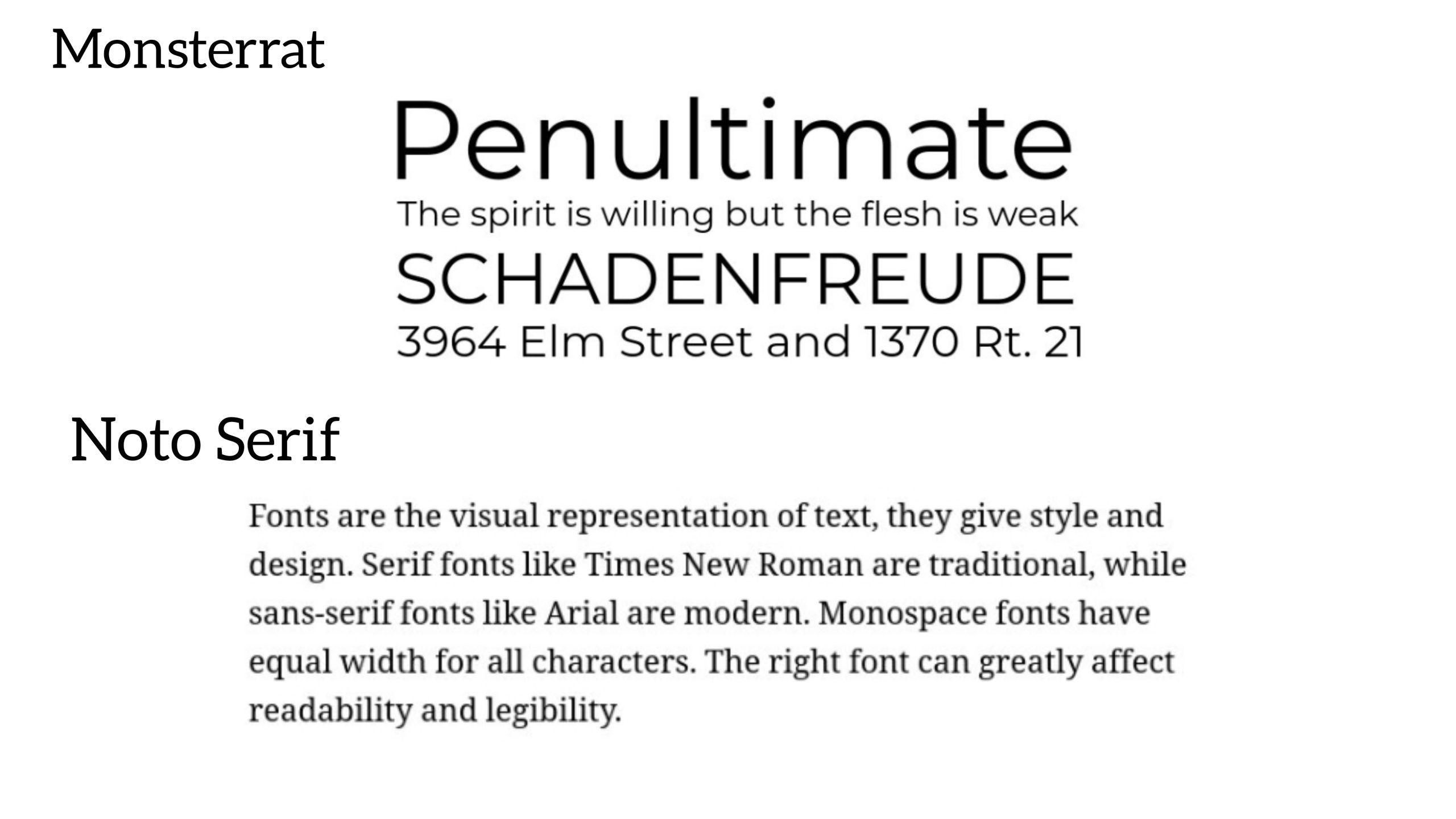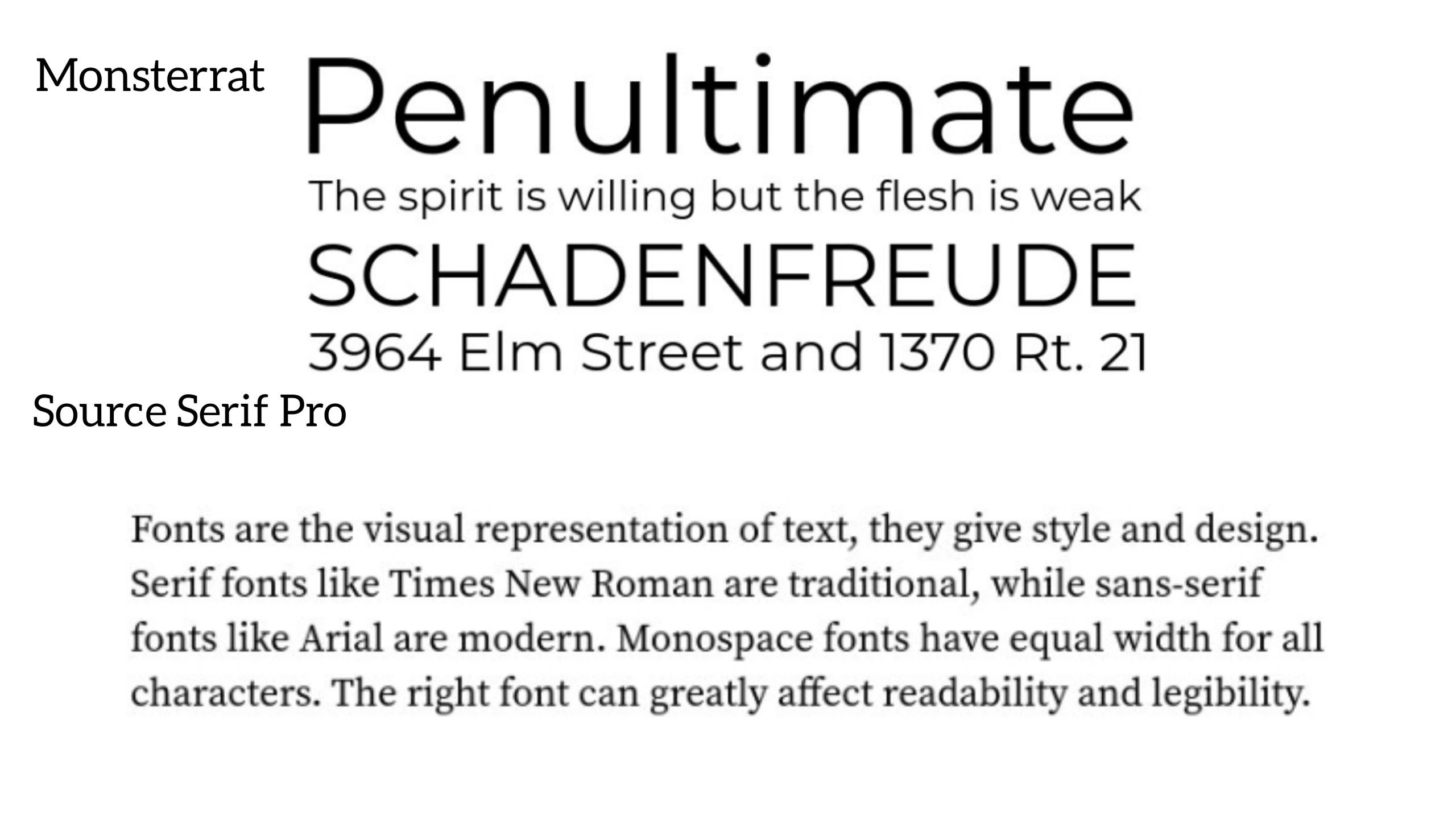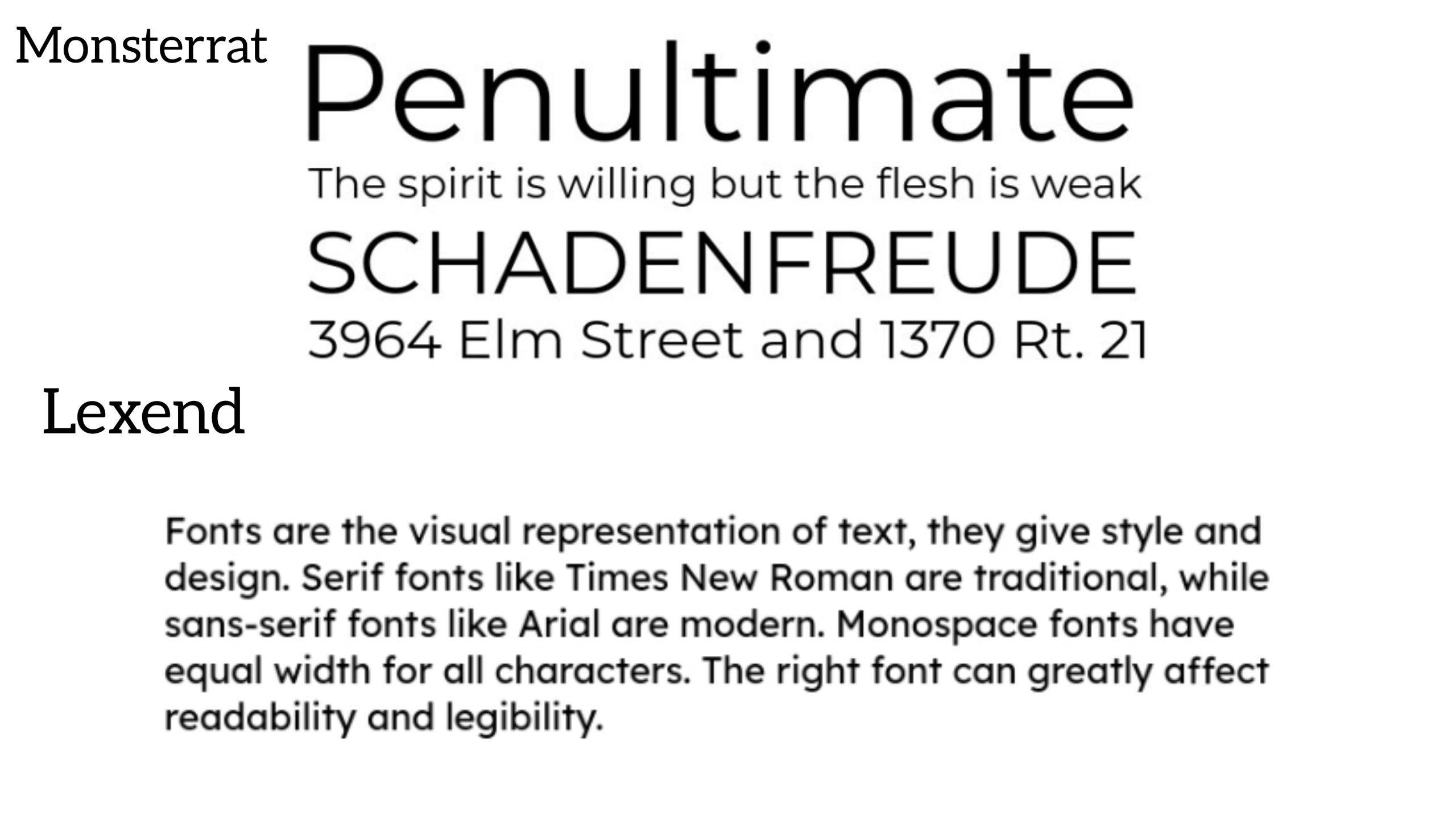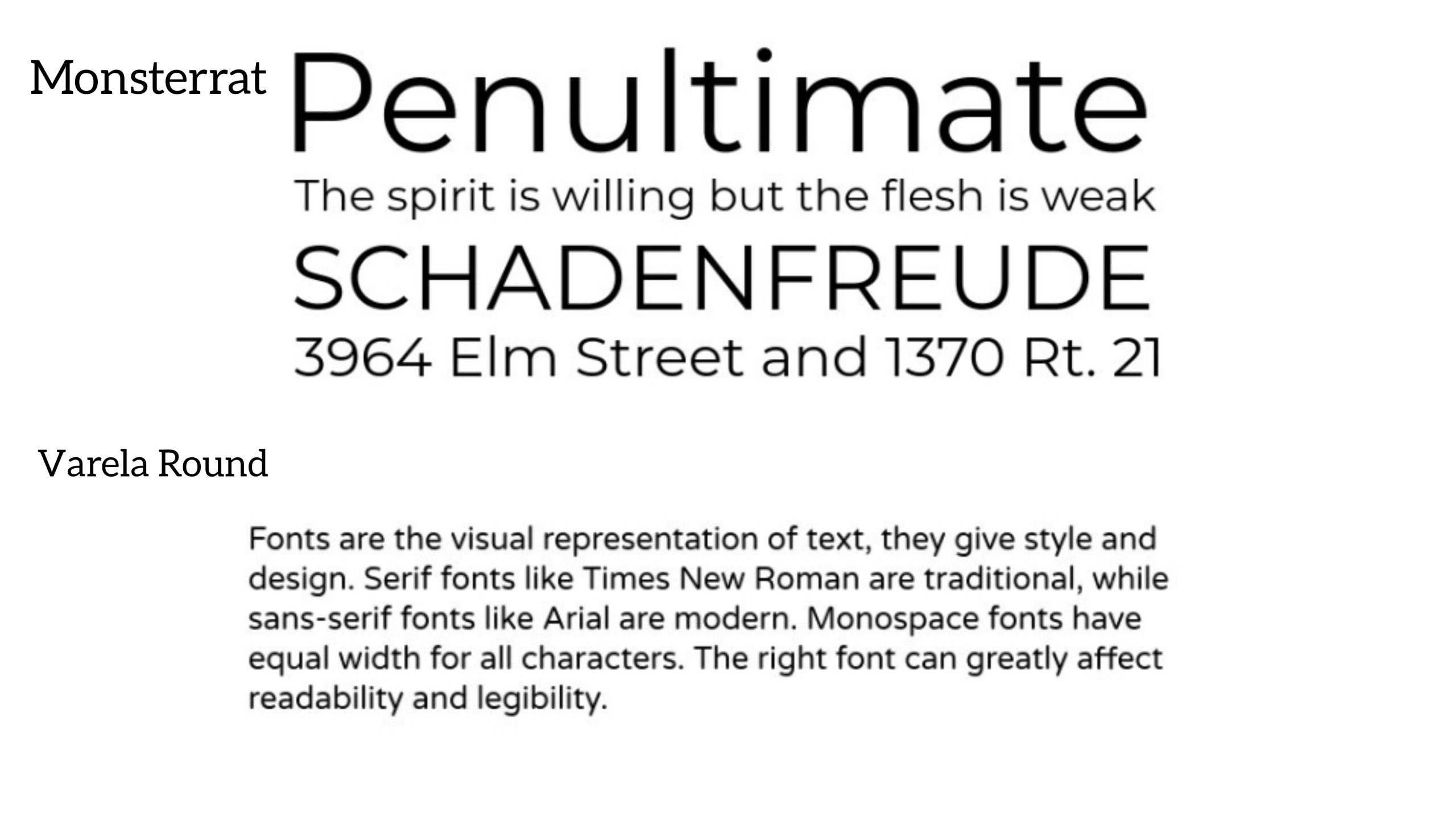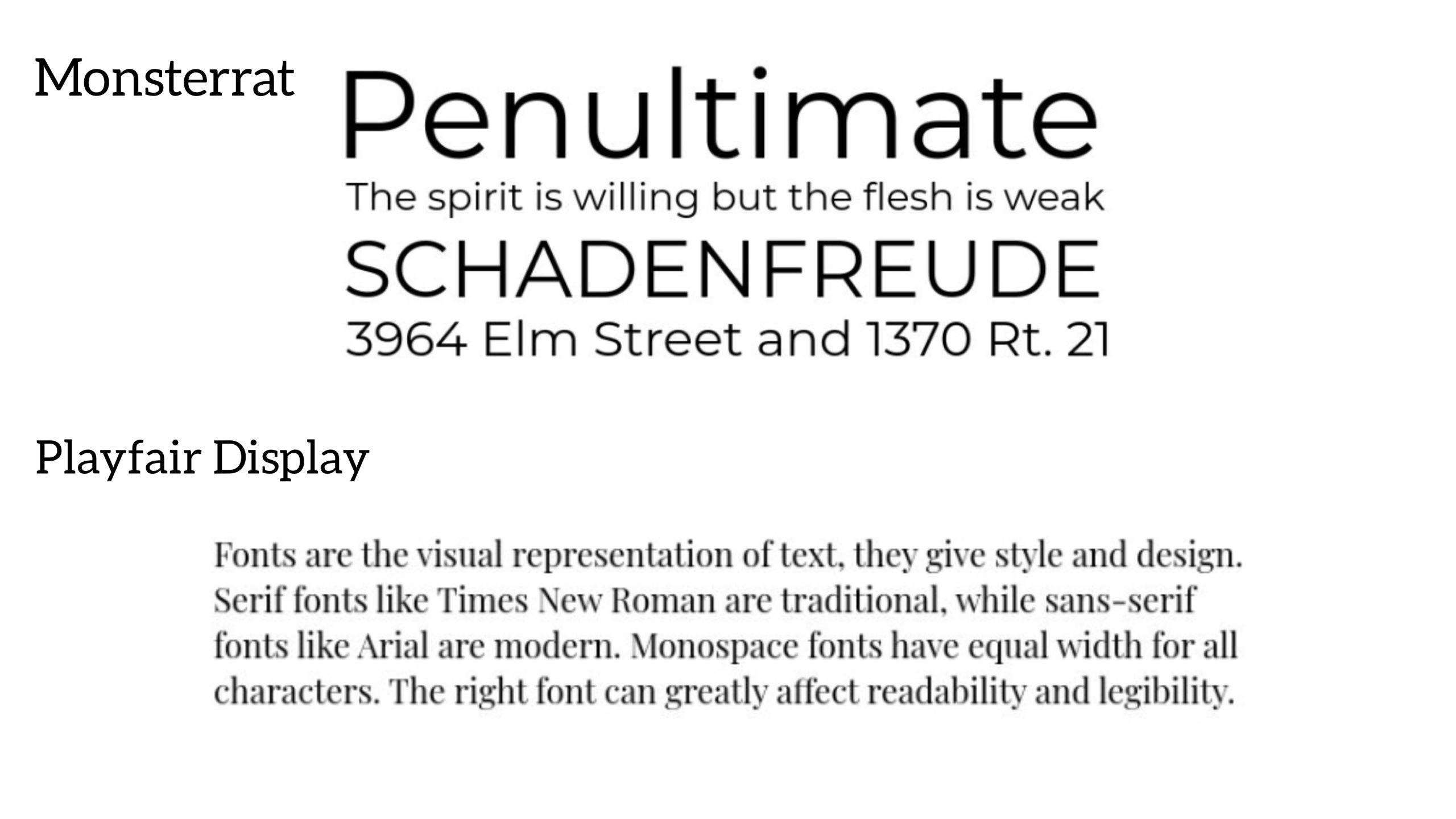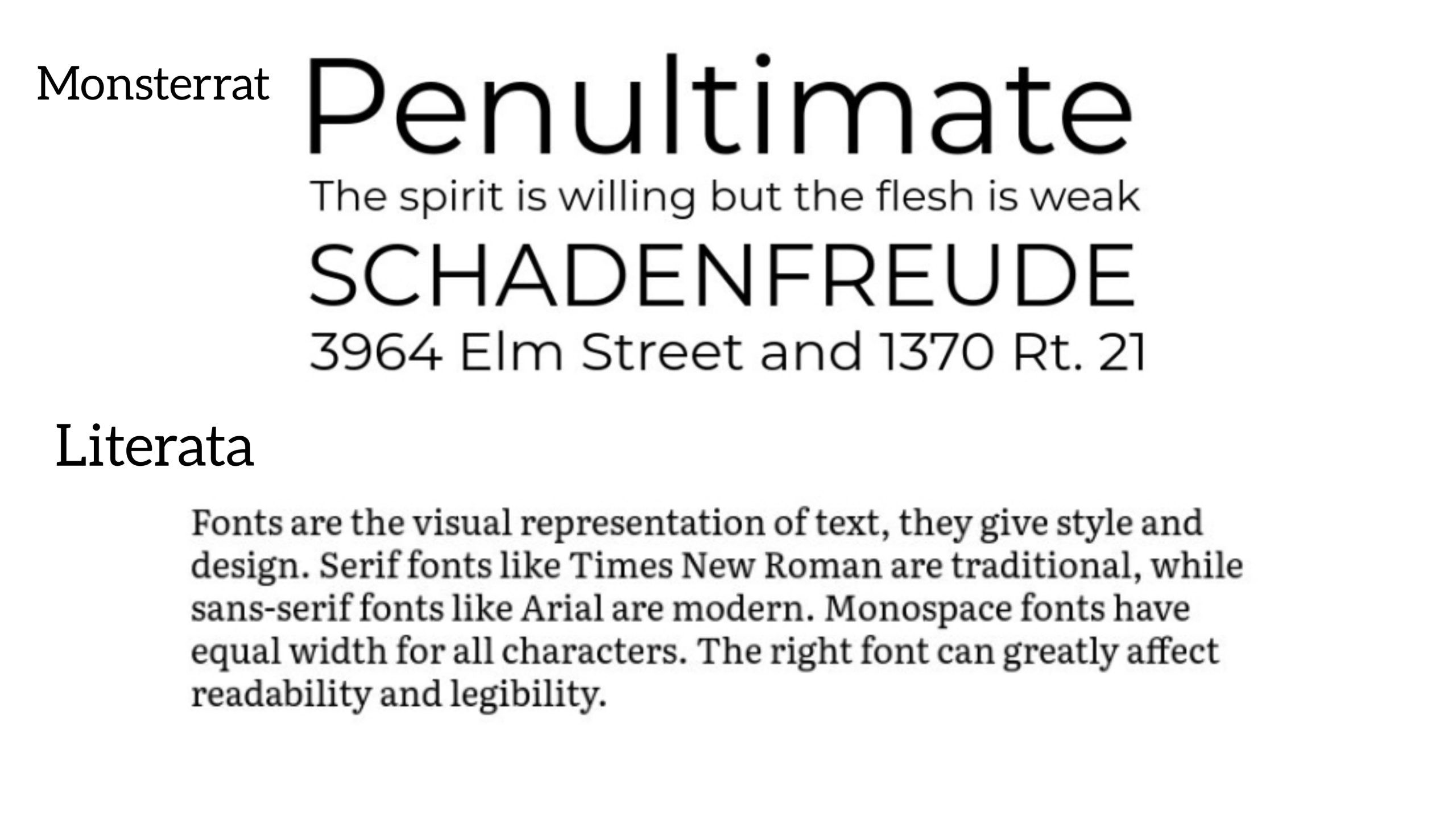
Choosing the right Montserrat font pairing can instantly enhance your design’s appeal. Montserrat itself is a geometric sans-serif typeface by Julieta Ulanovsky, released in 2011. It was inspired by vintage signs in Buenos Aires’ Montserrat neighborhood. Therefore, its clean lines blend modern style with classic charm.
Moreover, when paired well, Montserrat maintains readability while emphasizing key messages in the design. A thoughtful combination with this font makes your design look polished, not cluttered. So, let’s explore the best font combinations to elevate your work!
Key Takeaways
- Montserrat font pairing enhances readability and visual harmony in any design project.
- Serif and sans-serif fonts like Noto Serif or Merriweather pair well with Montserrat.
- The right font paired with Montserrat can balance aesthetics with classic elegance.
Top 12 Montserrat Font Pairing Choices for Pro Designers
If you’ve ever wondered what font pairs well with Montserrat, we’ve gathered the top 12 fonts to inspire your next project. Feel free to choose the combinations that best suit your style!
1. Noto Serif
Noto Serif is a modulated serif typeface designed for multiple scripts, including Latin, Cyrillic, and Greek. It offers italic styles, multiple weights, and a vast glyph set. When combined with Montserrat, Noto Serif’s similar x-height and letterforms create a harmonious balance for body text while Montserrat serves as the heading font.
2. Varela Round
If you’re wondering, “Does Montserrat font pair well with Varela Round?”, the answer is yes. This Montserrat font pairing works well, with Varela Round’s rounded sans-serif style and friendly letterforms used for body text, while Montserrat’s clean, geometric shapes stand out as the heading font.
3. Playfair Display
Playfair Display is a transitional typeface influenced by late 18th-century designs. Its high contrast and delicate hairlines provide an elegant touch when paired with Montserrat’s modern structure. This combination is particularly effective for projects aiming for a classic yet contemporary feel.
4. Literata
Literata is a variable serif font designed for digital reading across all devices. As a smart Montserrat font pairing, it blends classic and modern styles. This duo offers excellent readability and aesthetic balance. It’s ideal for websites, blogs, or digital publications.
5. Bitter
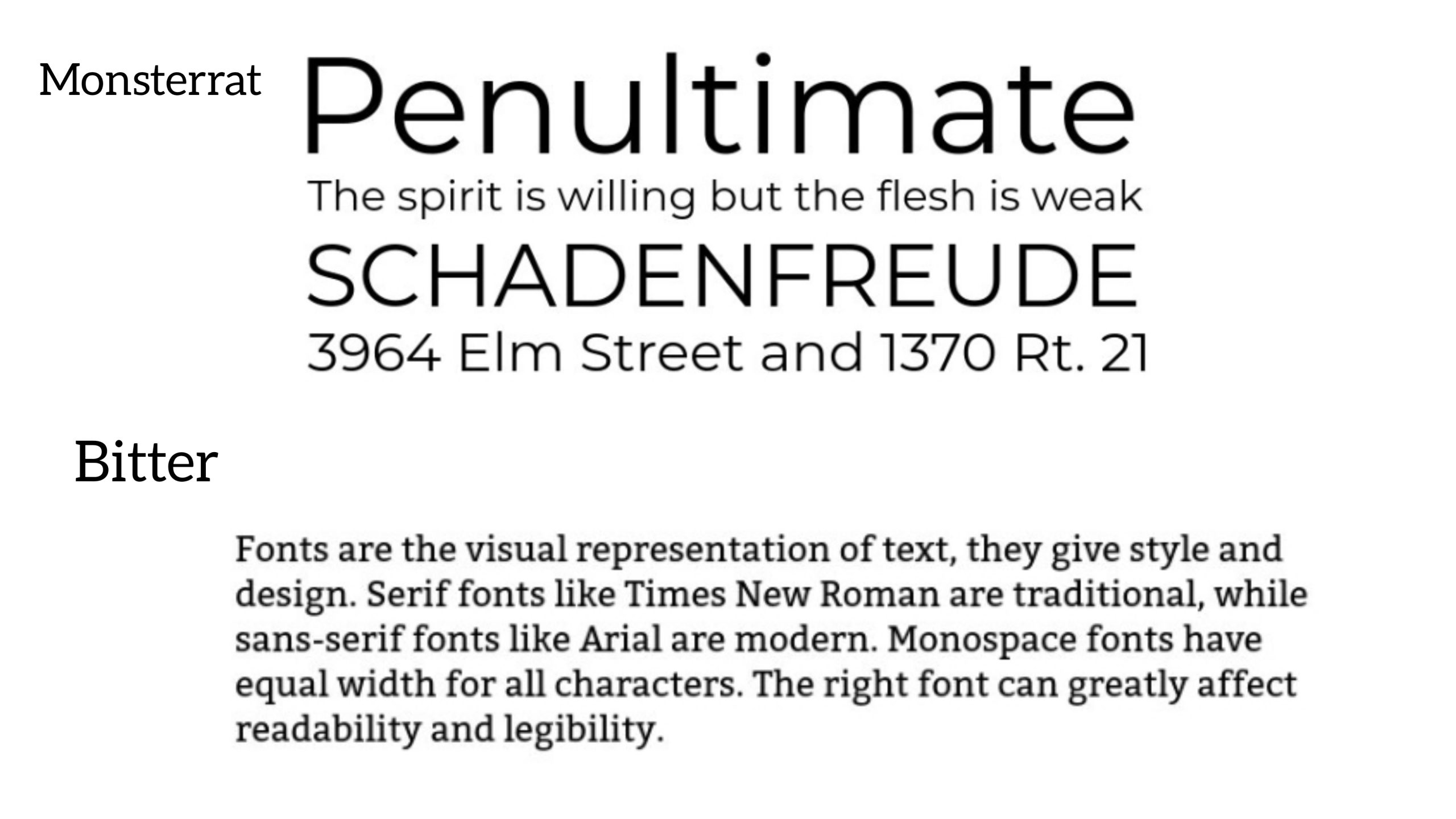
Bitter is a contemporary slab serif typeface designed for comfortable reading on screens. Its robust design and rational principles make it a strong companion to Montserrat, providing a balanced contrast that enhances readability in digital formats.
6. Varta
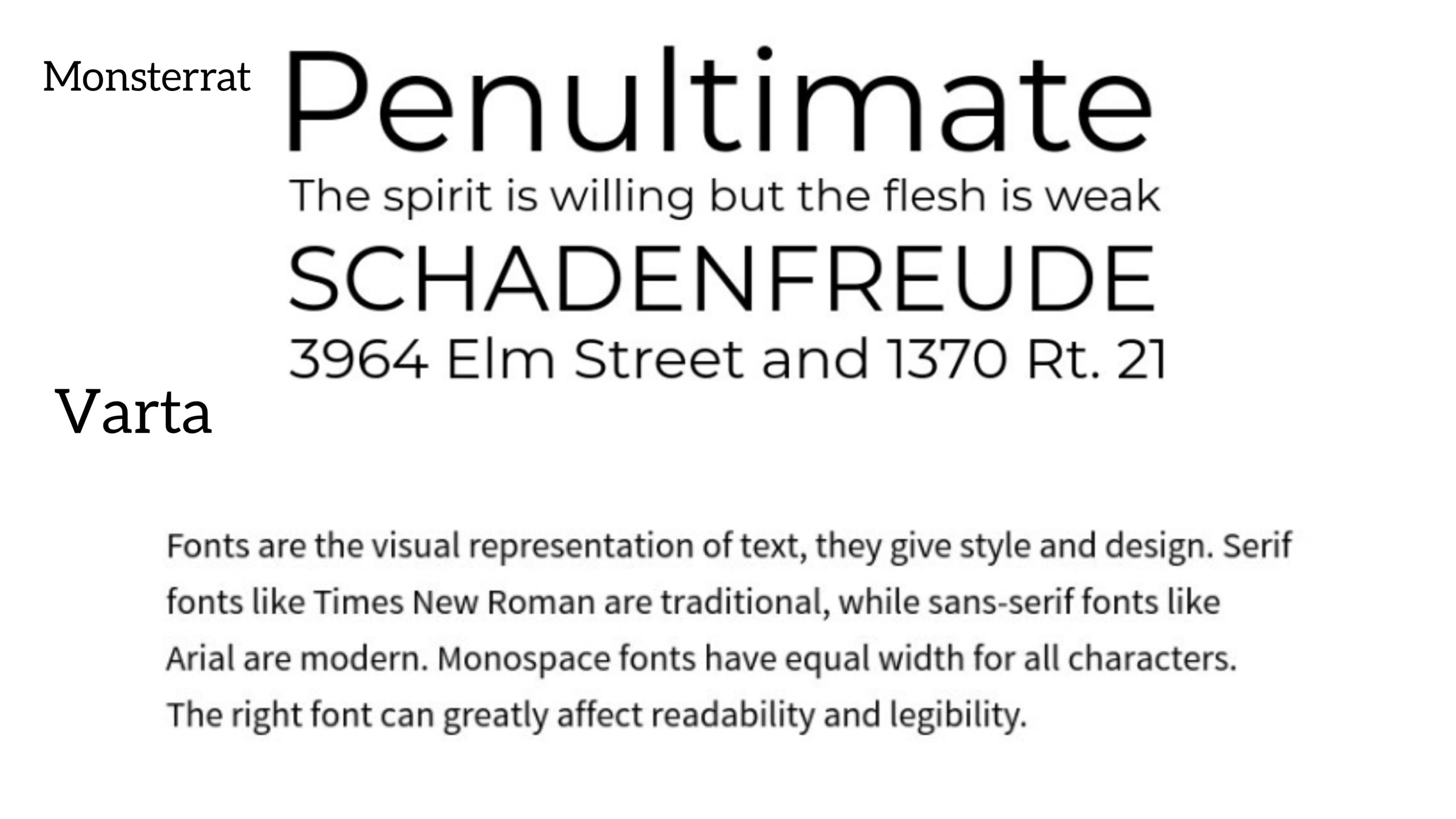
Varta is a sans-serif typeface that mirrors Montserrat’s geometric qualities but with a narrower width. This subtle pairing maintains a cohesive look while saving horizontal space, making it ideal for body text in layouts where space is limited.
7. Zilla Slab
Zilla Slab is a slab serif typeface that closely resembles Montserrat’s construction, with the addition of prominent serifs. This combination exudes confidence and is one of the bold font pairs with Montserrat. It works well for striking, text-heavy applications that need strong visual impact.
8. Cormorant
Cormorant is a display serif typeface inspired by Garamond. Its elegant and expressive letterforms contrast nicely with Montserrat’s geometric structure, adding a touch of sophistication to editorial designs and branding materials.
9. Karla
Karla is a grotesque sans-serif typeface with a friendly and approachable feel. Pairing Karla with Montserrat creates a clean and modern aesthetic, suitable for user interfaces and digital platforms seeking clarity and simplicity.
10. Source Serif Pro
Source Serif Pro is a serif typeface. Its readability and classic proportions make it perfect for a Montserrat font pairing. This duo balances modern and traditional elements, creating clean and professional typography.
11. Barlow
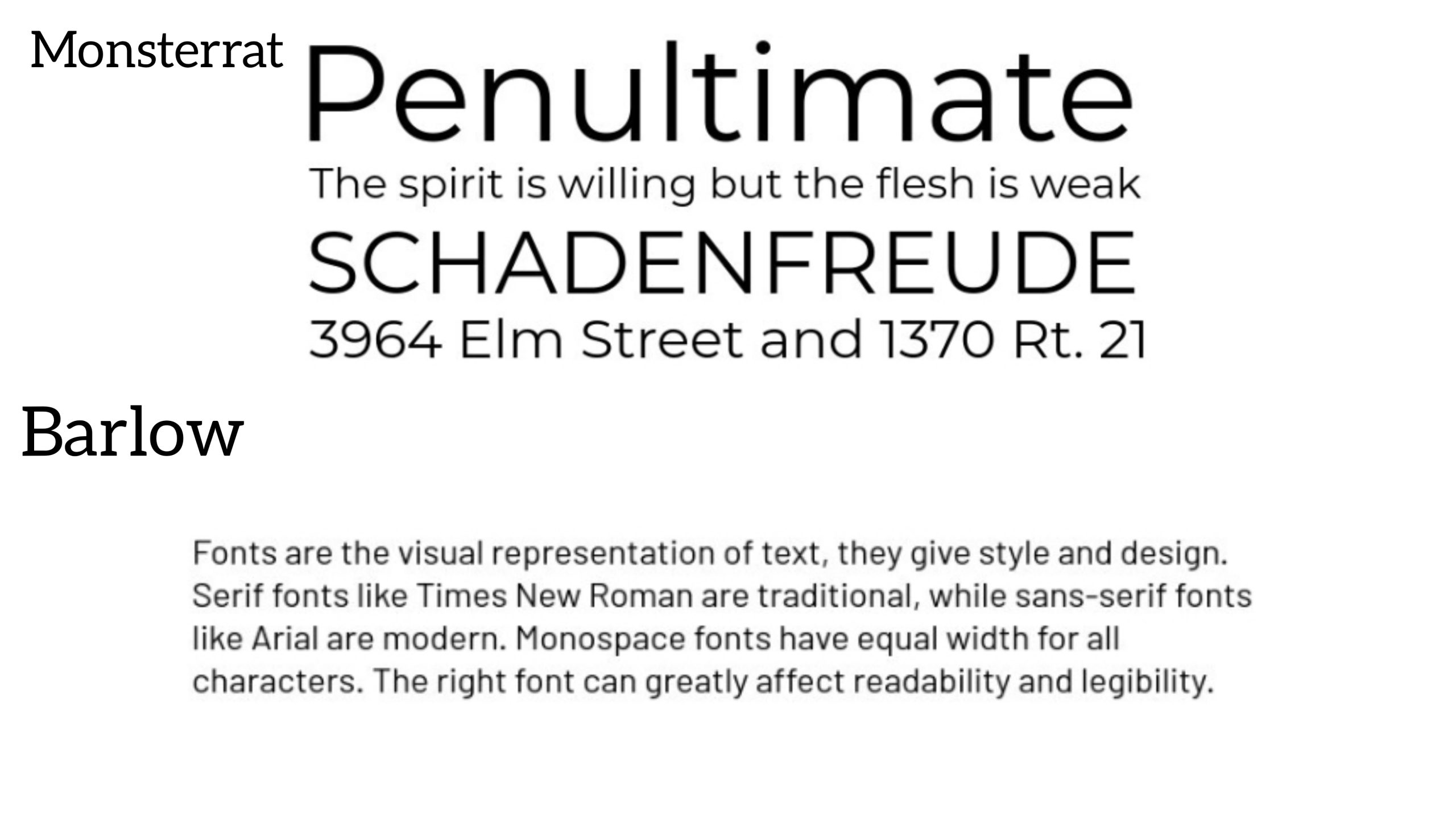
Barlow is a sans-serif typeface with a slightly rounded design that softens Montserrat’s bold aesthetic. Its clean strokes and balanced proportions enhance readability for body text. This pairing suits branding, UI design, and editorial layouts for an approachable look.
12. Lexend
Lexend is a highly legible typeface designed to improve reading fluency and reduce visual strain. Its geometric yet fluid form pairs seamlessly with Montserrat for clear, readable text. This combination is perfect for educational content, reports, and websites.
Polish Your Projects with Smart Montserrat Font Pairing Choices!